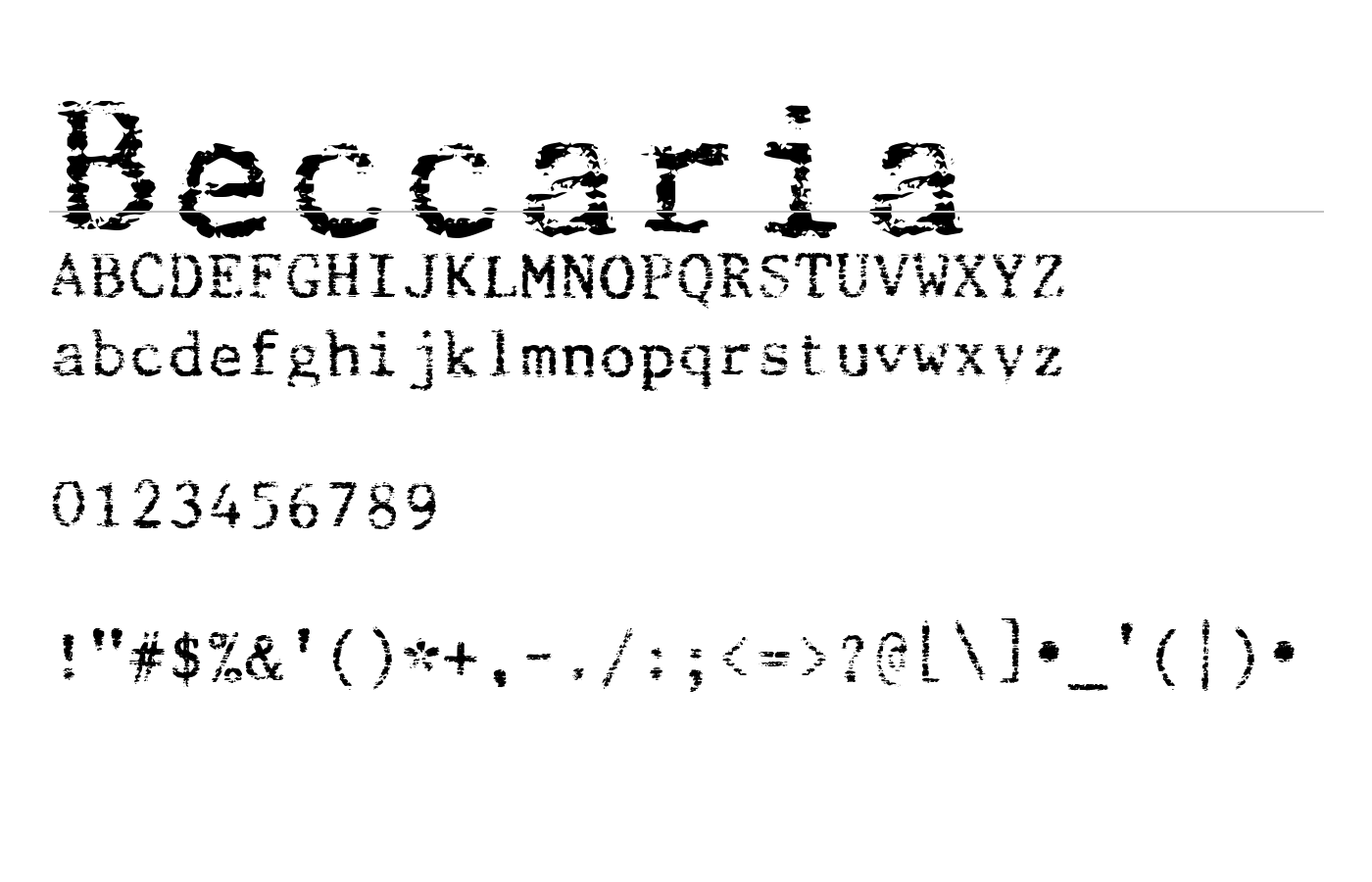
Beccaria is a distressed serif font with a vintage, typewriter-inspired look characterized by worn and textured edges that add a gritty, aged feel. Its medium weight and condensed width, combined with classic serif shapes, make it ideal for designs seeking an authentic, old-fashioned atmosphere, perfect for editorial designs, posters, or branding that wants to evoke nostalgia and character. The font's uneven texture and clear letterforms give it personality while maintaining readability in display sizes.
Beccaria Font
About Beccaria Font
| Font family | Beccaria Font |
| Designer | S. John Ross |